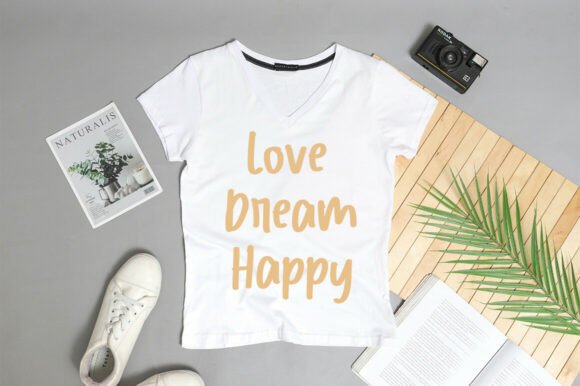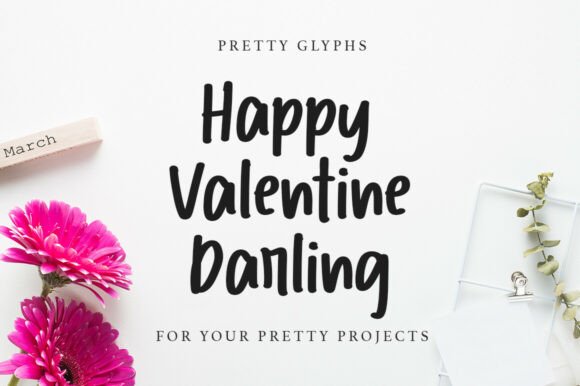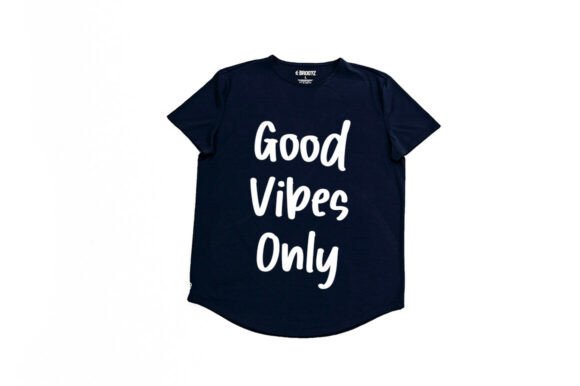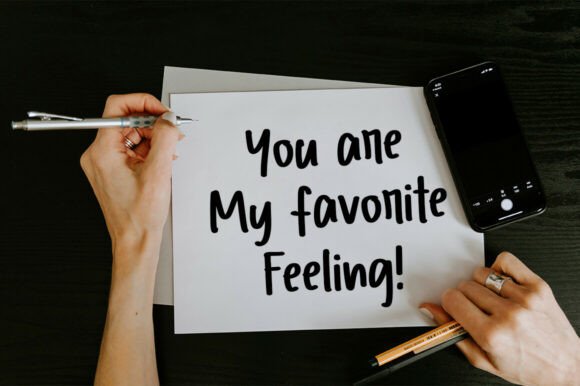
When Creativity Strikes
There’s nothing quite like the thrill of a blank canvas, waiting to be transformed into something extraordinary. As a designer, you’ve probably experienced that moment when a spark of inspiration hits, and you know exactly what you want to create. But sometimes, it’s the right tools that make all the difference. That’s where the Grind Savage Font comes in – a game-changing handwritten brush font that’s about to revolutionize your design workflow.
This bold, expressive font is designed to bring a touch of authenticity to your designs, with natural strokes, dynamic movement, and a handcrafted texture that’s impossible to ignore. Whether you’re working on branding, social content, or anything in between, the Grind Savage Font is the perfect tool to add some creative energy to your projects.
Grind Savage Font Key Features
- Font Family: Grind Savage
- Font Style: Sans-Serif, Display Font
- Unique Characteristics: Bold and edgy design, ideal for bold headlines and titles
Grind Savage Font Review
First of all, I really like the edgy vibe that Grind Savage Font brings to the table. The bold, sans-serif design is perfect for creating a tough and modern look for anything from posters to social media graphics. The font is highly customizable, allowing you to adjust the size, color, and even the spacing between letters to fit your needs. ✨
- Highly customizable: You can adjust the font size, color, and spacing to fit your needs.
- Edgy vibe: The bold, sans-serif design is perfect for creating a modern and tough look.
- Wide range of applications: Suitable for posters, social media graphics, and other digital materials.
However, there are a few limitations to consider. ⚠️ The font can be quite heavy and overwhelming if used excessively, so be careful not to overdo it. Additionally, the font might not be suitable for all types of content, such as academic or formal documents, where a more traditional font is preferred. Lastly, the font might not be fully compatible with all operating systems or devices, which could cause compatibility issues.
Overall, I think Grind Savage Font is a solid choice for anyone looking for a bold and modern font. While it may have some limitations, its versatility and customizability make it a great option for a wide range of applications.
Tips for Getting the Most Out of Grind Savage Font
To get the most out of the Grind Savage font, use it for bold and edgy designs, such as sports jerseys, streetwear branding, or urban-themed graphics. You can also use it for quotes, posters, and other eye-catching visuals.
The Grind Savage font is commonly used for:
- Sports jerseys and apparel
- Streetwear branding and logos
- Urban-themed graphics and posters
- Quotes and motivational graphics